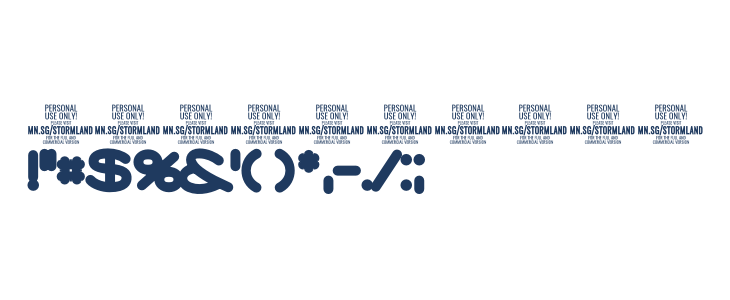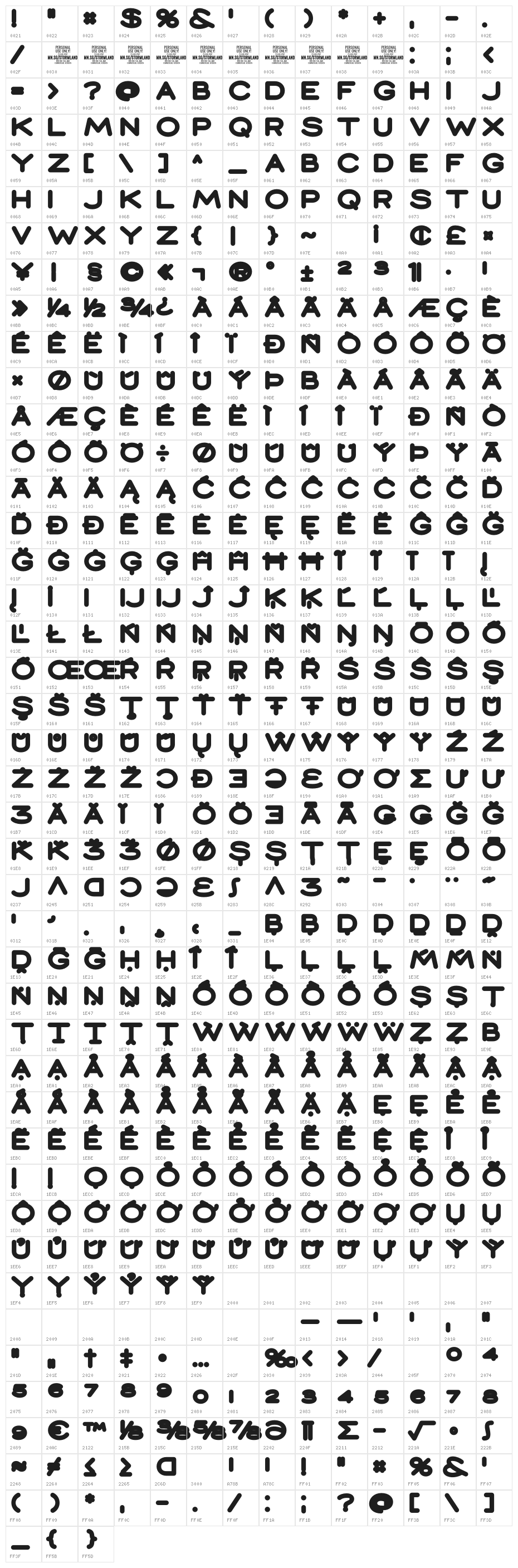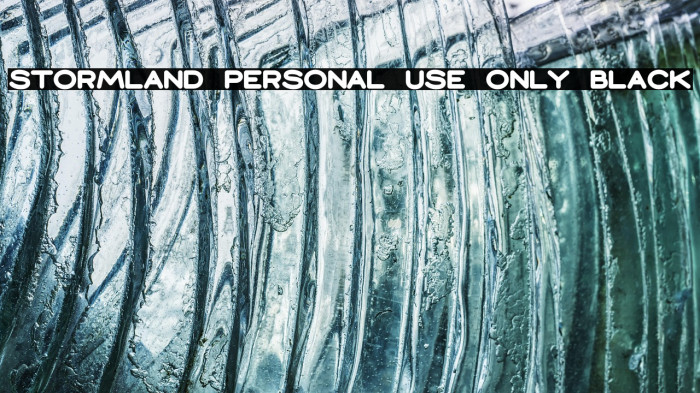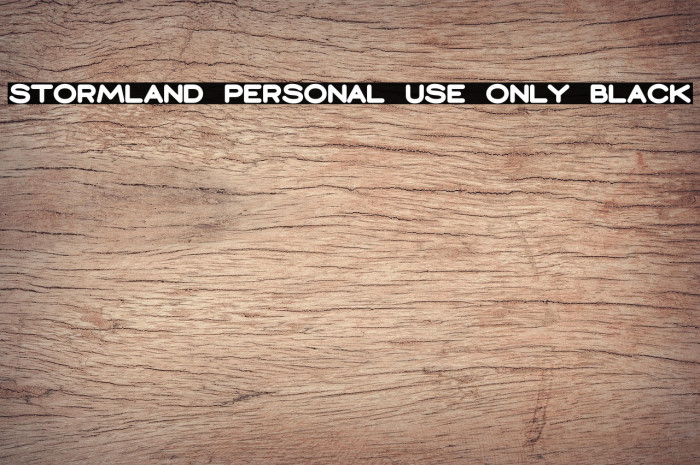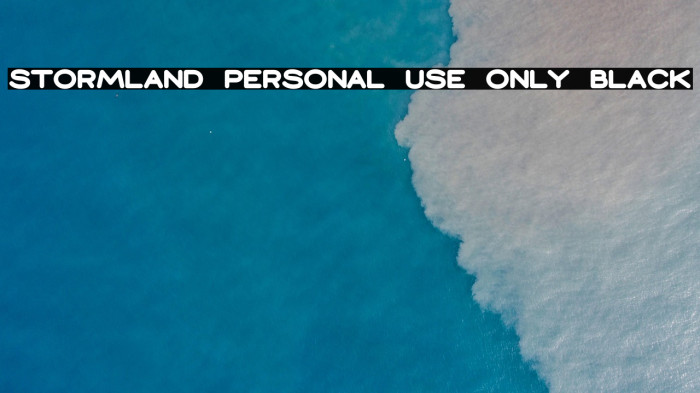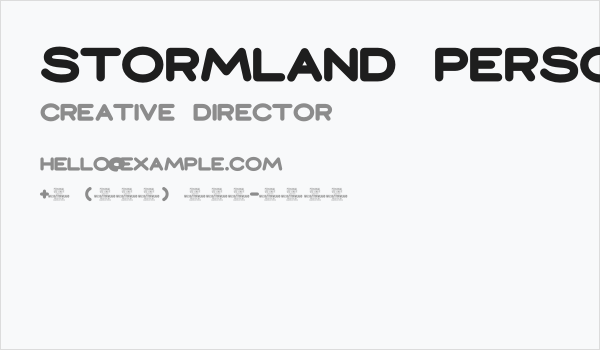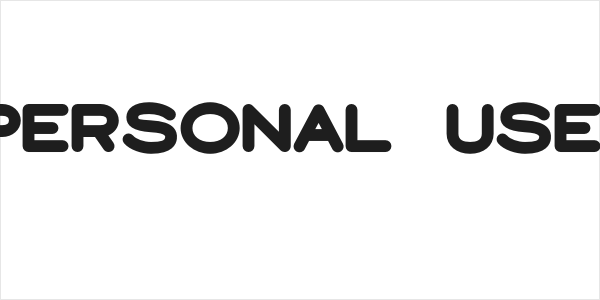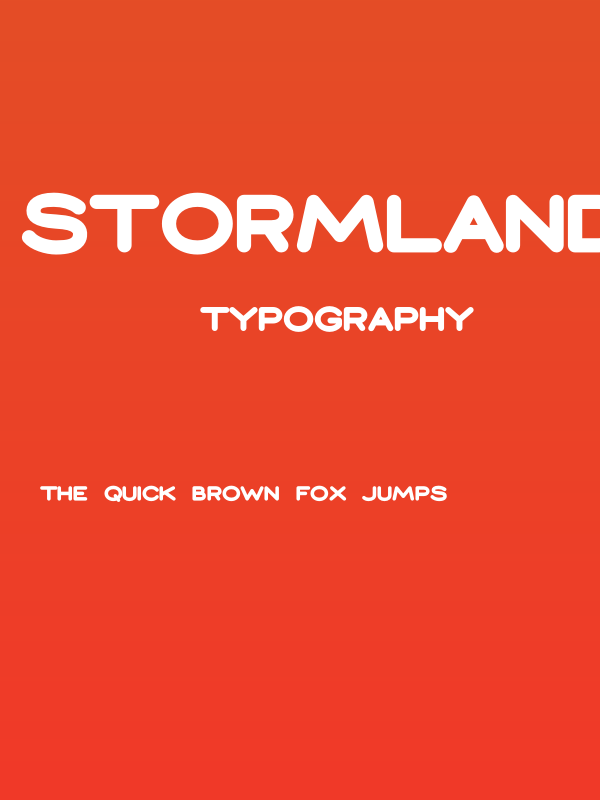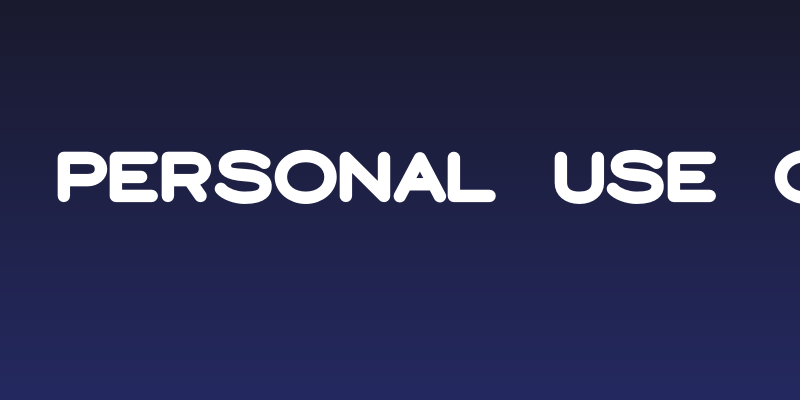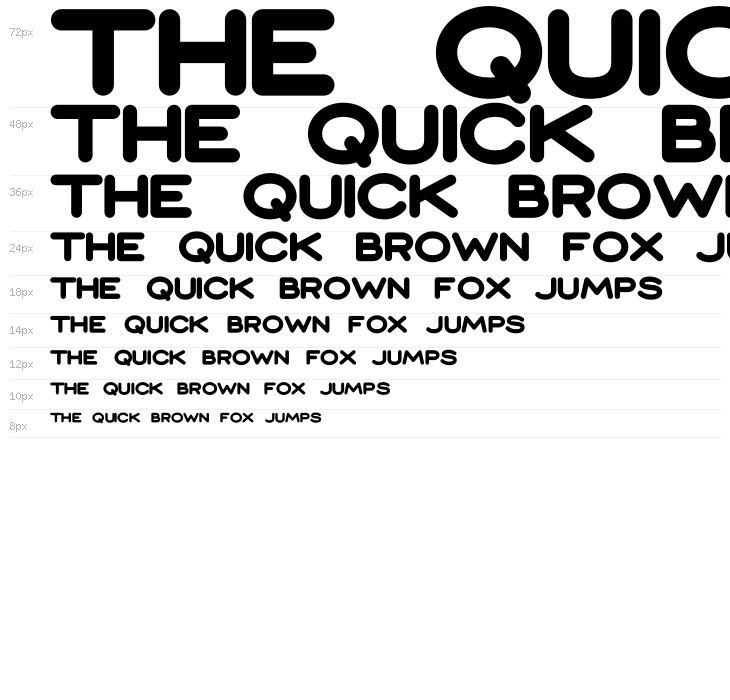
Stormland PERSONAL USE ONLY Black Font
Stormland PERSONAL USE ONLY Black Description
This font features bold, rounded characters with a modern and playful aesthetic. The letters are uniformly thick, giving them a strong presence on the page. The rounded edges soften the overall look, making it approachable and friendly. The characters are evenly spaced, providing a balanced and clean appearance. This style is particularly effective for creating eye-catching headlines or logos that require a contemporary and informal touch. The font includes a full set of uppercase letters, numbers, and a selection of special characters, ensuring versatility in various design contexts.